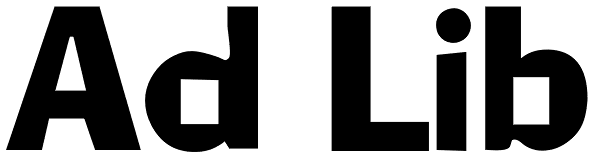
Ad Lib
Note: All SoftMaker webfonts come with unlimited pageviews. Ad Lib was created by Freeman Craw for ATF in 1961. Sporting irregular character shapes, this informal typeface makes a good impression when a 1960s look is desired in advertising and...